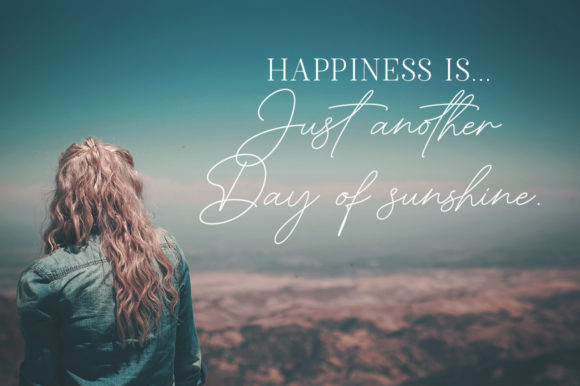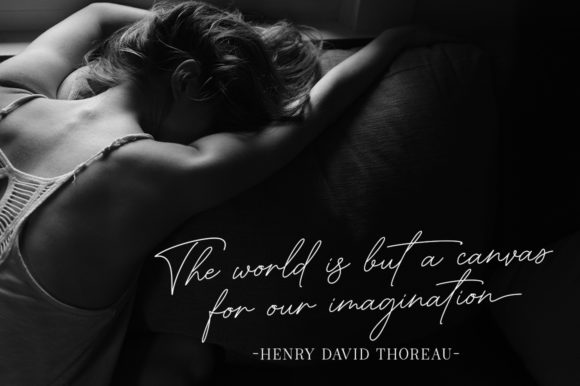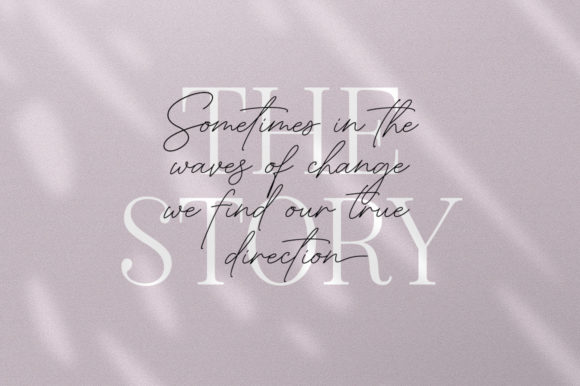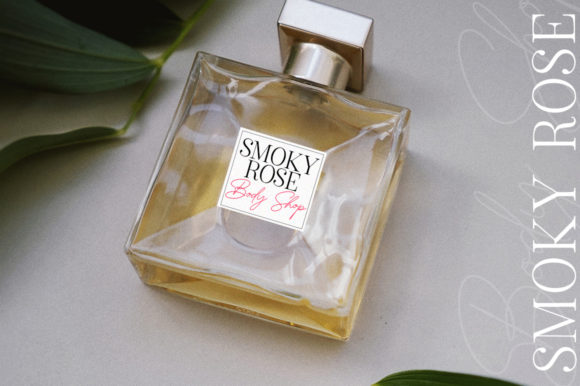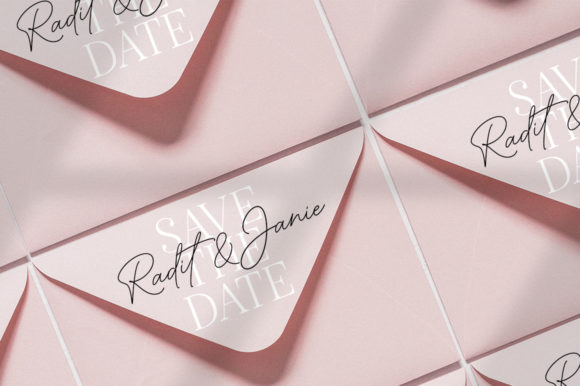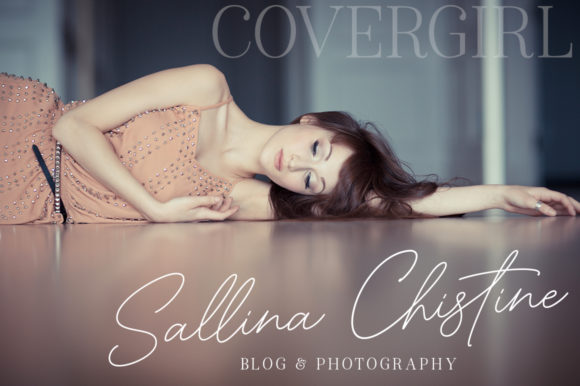
Discover the Charm of American Favorite Font: Elevate Your Designs with this Stunning Display Font
Are you tired of using the same old fonts in your designs? Look no further! American Favorite is a cool and charming display font that is sure to turn any design idea into a true standout. With its incredible style and versatility, this font is perfect for designers and crafters looking to add a touch of personality to their work.
What Makes American Favorite Font So Special?
American Favorite Font is a unique and eye-catching display font that is designed to make a statement. Its charming and cool style is perfect for a wide range of design projects, from branding and advertising to packaging and signage. Whether you’re looking to create a bold and attention-grabbing headline or a beautiful and elegant text, American Favorite Font is the perfect choice.
One of the things that sets American Favorite Font apart from other fonts is its incredible versatility. It can be used in a variety of contexts, from digital designs to print materials, and can be easily paired with other fonts to create a unique and cohesive look. Whether you’re a professional designer or a crafty DIY enthusiast, American Favorite Font is a great addition to your font collection.
Key Features of American Favorite Font
- Cool and charming style: American Favorite Font has a unique and eye-catching style that is sure to turn heads.
- Incredible versatility: This font can be used in a wide range of design projects, from digital designs to print materials.
- Easy to pair with other fonts: American Favorite Font can be easily paired with other fonts to create a unique and cohesive look.
- Perfect for display text: This font is designed specifically for display text, making it perfect for headlines, titles, and other attention-grabbing elements.
How to Use American Favorite Font in Your Designs
American Favorite Font is easy to use and can be incorporated into your designs in a variety of ways. Here are a few ideas to get you started:
- Use it as a headline font: American Favorite Font is perfect for creating bold and attention-grabbing headlines.
- Add it to your branding materials: Use American Favorite Font to create a unique and memorable brand identity.
- Use it in your packaging designs: American Favorite Font is a great choice for packaging designs, adding a touch of personality and charm to your products.
- Pair it with other fonts: Experiment with pairing American Favorite Font with other fonts to create a unique and cohesive look.
Why Designers and Crafters Love American Favorite Font
American Favorite Font has quickly become a favorite among designers and crafters, and for good reason. Here are a few reasons why:
- Unique and eye-catching style: American Favorite Font has a unique and eye-catching style that sets it apart from other fonts.
- Easy to use: This font is easy to use and can be incorporated into a wide range of design projects.
- Versatile: American Favorite Font can be used in a variety of contexts, from digital designs to print materials.
- High-quality: This font is designed to be high-quality and professional, making it perfect for designers and crafters who want to create stunning designs.
American Favorite Font is a cool and charming display font that is sure to elevate your designs to the next level. With its incredible style and versatility, this font is perfect for designers and crafters looking to add a touch of personality to their work. Whether you’re looking to create a bold and attention-grabbing headline or a beautiful and elegant text, American Favorite Font is the perfect choice. So why wait? Download American Favorite Font today and start creating stunning designs that will leave a lasting impression!